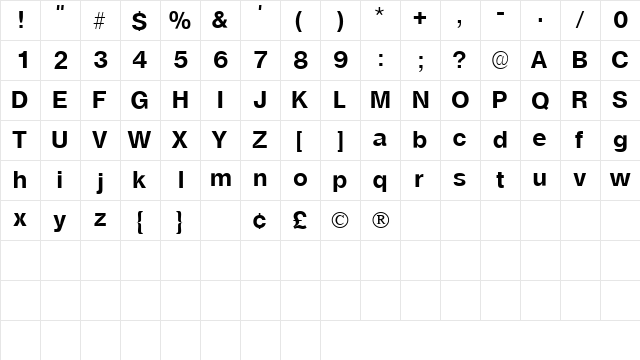
ChoqueSSK Regular
Design Context for ChoqueSSK Typeface
ChoqueSSK offers clean, dependable letterforms without strong stylistic allegiance, making it a practical choice for designers who need flexibility.